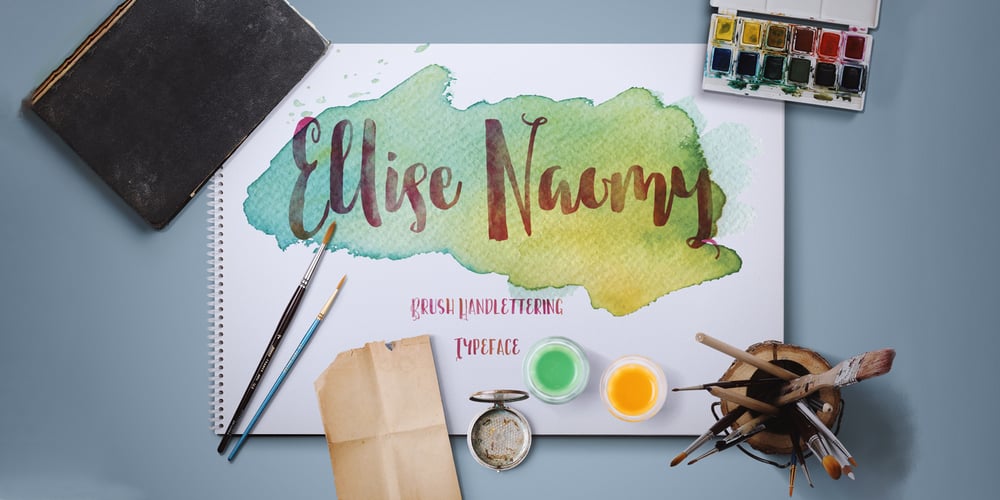
Ellise Naomy Font Family was designed by Rudi Suhairi and published by Tegaki. Ellise Naomy contains 1 styles and family package options. Hey everyone,Meet “Ellise Naomy” – a stunning brush handlettering font with a charmingly brushy style. Perfect for adding a touch of personality to your projects, this font is PUA encoded for your convenience.Ellise Naomy isn’t just your ordinary font; it’s a unique blend of style and character. Whether you’re designing logos, wedding invitations, or even clothing, Ellise Naomy fits the bill perfectly.With 339 glyphs and 118 alternate characters, Ellise Naomy offers plenty of options to play with. Explore its various stylistic alternates to give your words that extra brushy flair.Don’t miss out on the beauty and versatility of Ellise Naomy. Grab it now and let your creativity shine!